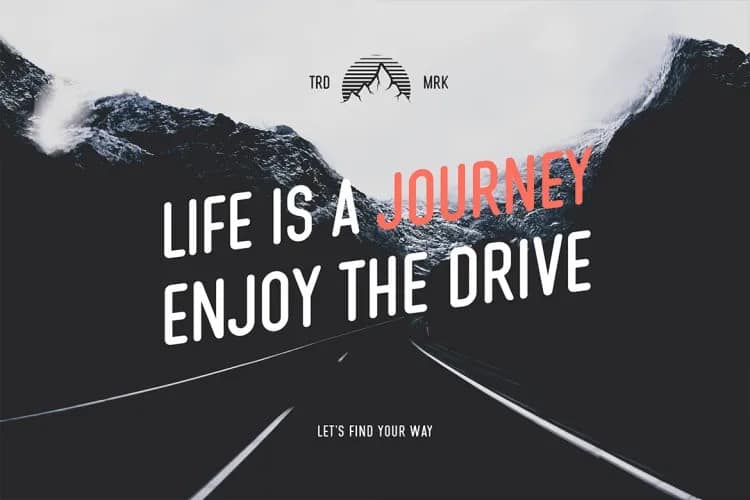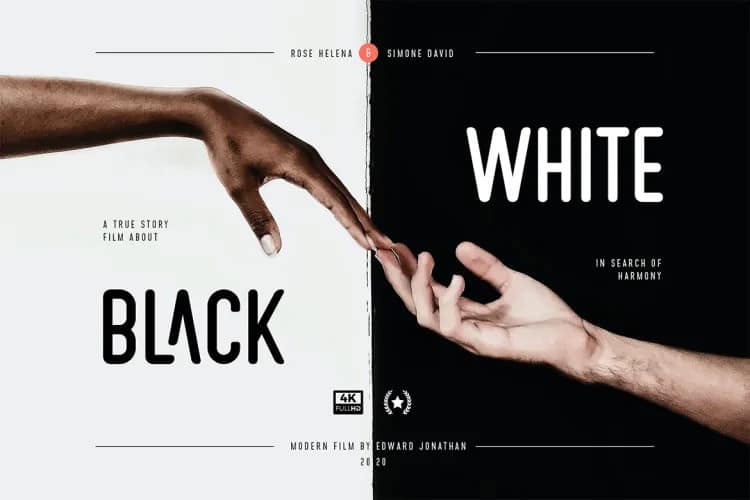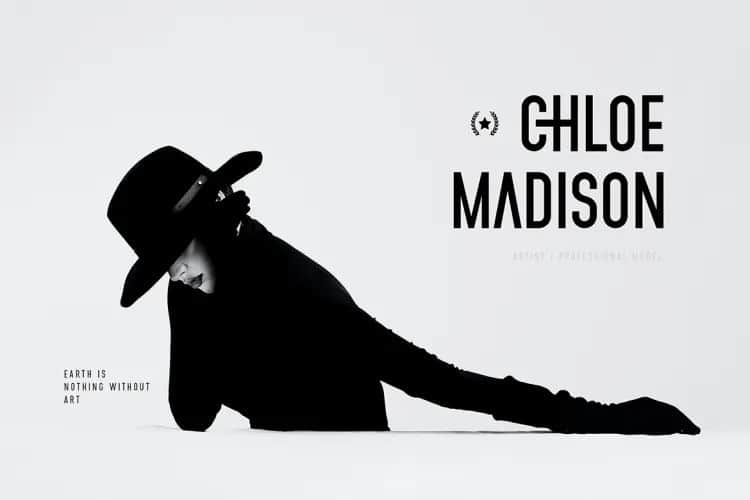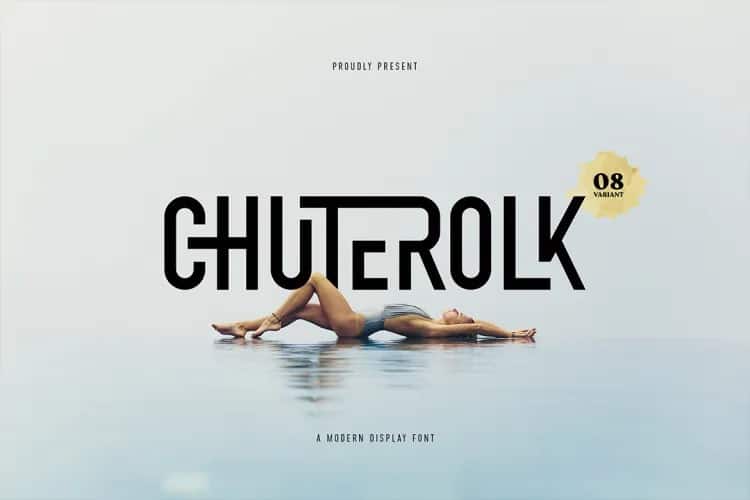
CHUTEROLK Sans Serif Font is a Sans Serif font with a futuristic and modern look. It’s designed and shared by Namara Creative Studio. A strong balance between strong pointed corners and smooth curves, Perfect for all purposes but especially for headlines. With 8 Variant to choose : Light, Light Italic, Regular, Italic, Rounded, Shadow, Distort and outlines, also includes alternative glyphs, ligatures and multilingual support.